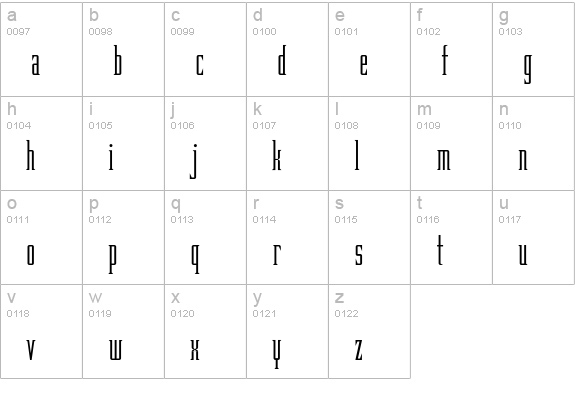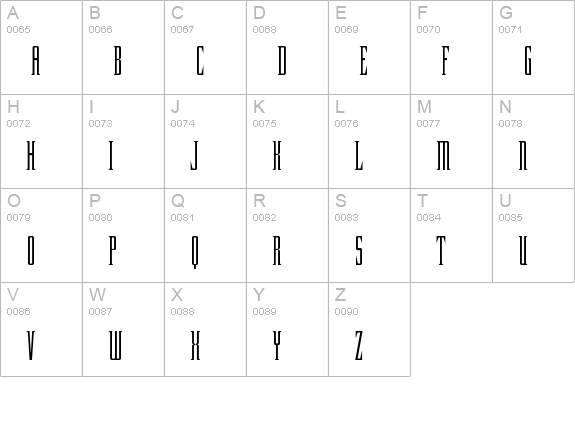
Rapture Font Details
Introducing Rapture, the font that will transport you to a realm of pure visual delight. Its elegant and flowing curves effortlessly captivate the eye, creating a sense of enchantment and charm in every letter. Rapture is the epitome of sophistication, combining timeless beauty with modern design elements. This font exudes a sense of grace and refinement, making it perfect for a wide range of creative projects. Whether you're designing a wedding invitation, crafting a logo for a luxury brand, or simply adding a touch of elegance to your personal blog, Rapture is the ideal choice to elevate your creations to new heights. But what sets Rapture apart from other fonts? It's the fact that it is freely available to download at FontsMarket.com. Yes, you read that right - this stunning font can be yours without breaking the bank. FontsMarket.com is known for its vast collection of high-quality fonts, and Rapture is no exception. With just a few clicks, you can have this exquisite typeface at your fingertips, ready to be used in all your design endeavors. Rapture is a true gem in the world of typography, offering a harmonious balance between sophistication and accessibility. Its versatility allows it to be used in a variety of settings, from elegant branding projects to eye-catching headlines. The carefully crafted letterforms and attention to detail make Rapture a font that is sure to leave a lasting impression on anyone who encounters it. So why wait? Unleash the power of Rapture and let it transport your designs to a realm of sheer beauty and elegance. Download this extraordinary font for free at FontsMarket.com and embark on a creative journey like no other. With Rapture, the possibilities are endless, and the results are bound to be nothing short of breathtaking.